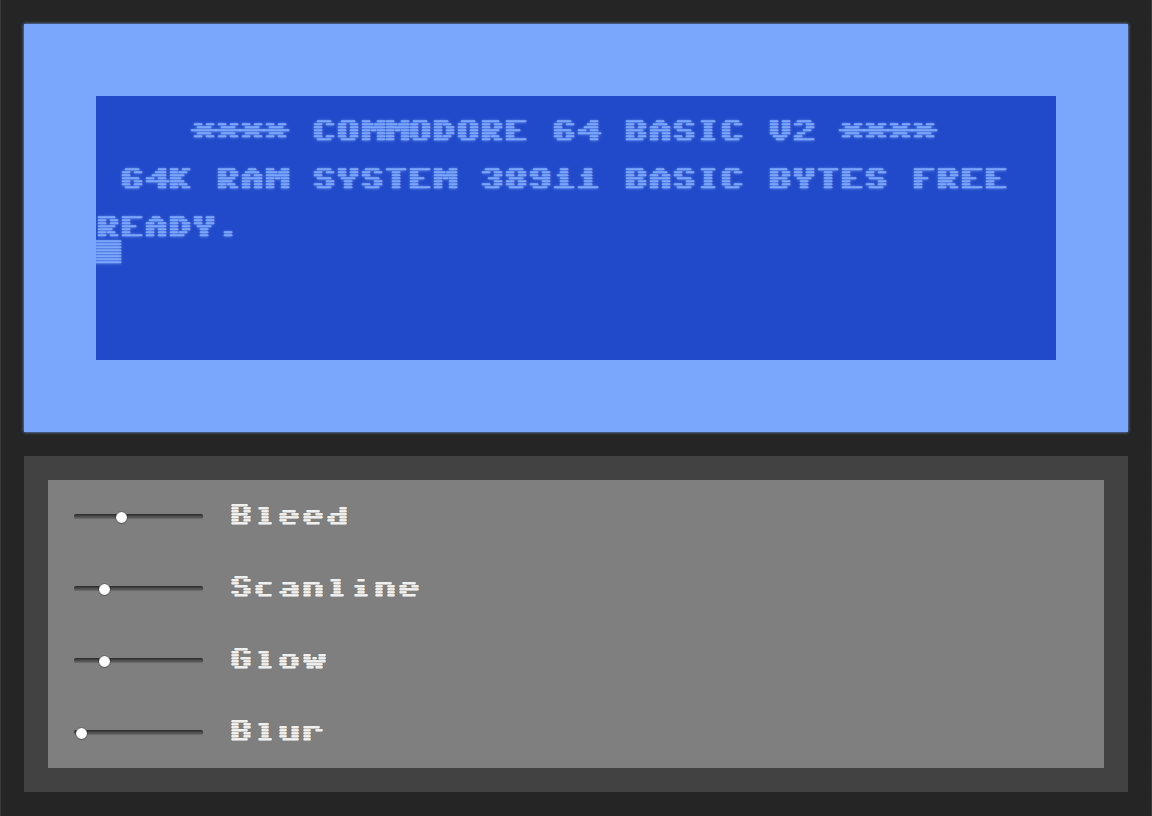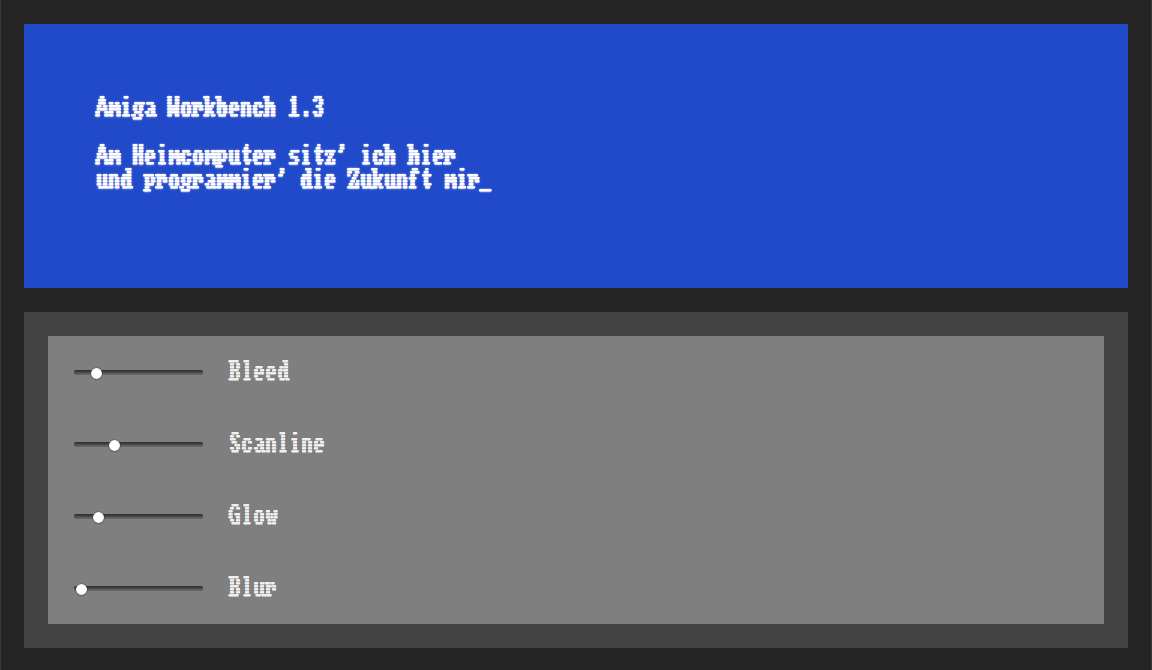
Variable fonts based on the Commodore 64 and Amiga fonts.
Variable fonts based on the Commodore 64 fonts.
Inspired by the article Raster CRT Typography (According to DEC) by Norbert Landsteiner, I reworked some old pixel versions of the Commodore 64 and Amiga Workbench fonts and I had done years ago to include variable font axes for the size of the horizontal scanlines and the amount of horizontal bleed of the pixels due to the phosphor latency found in CRT displays.